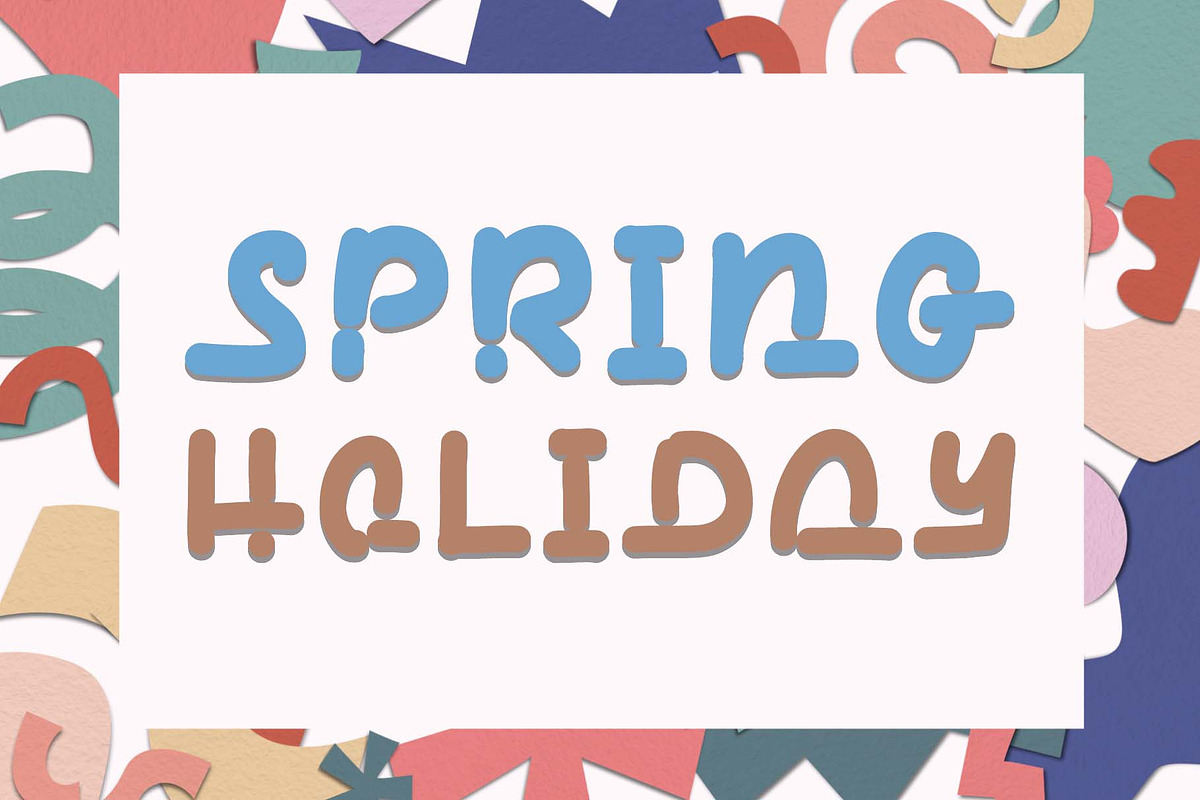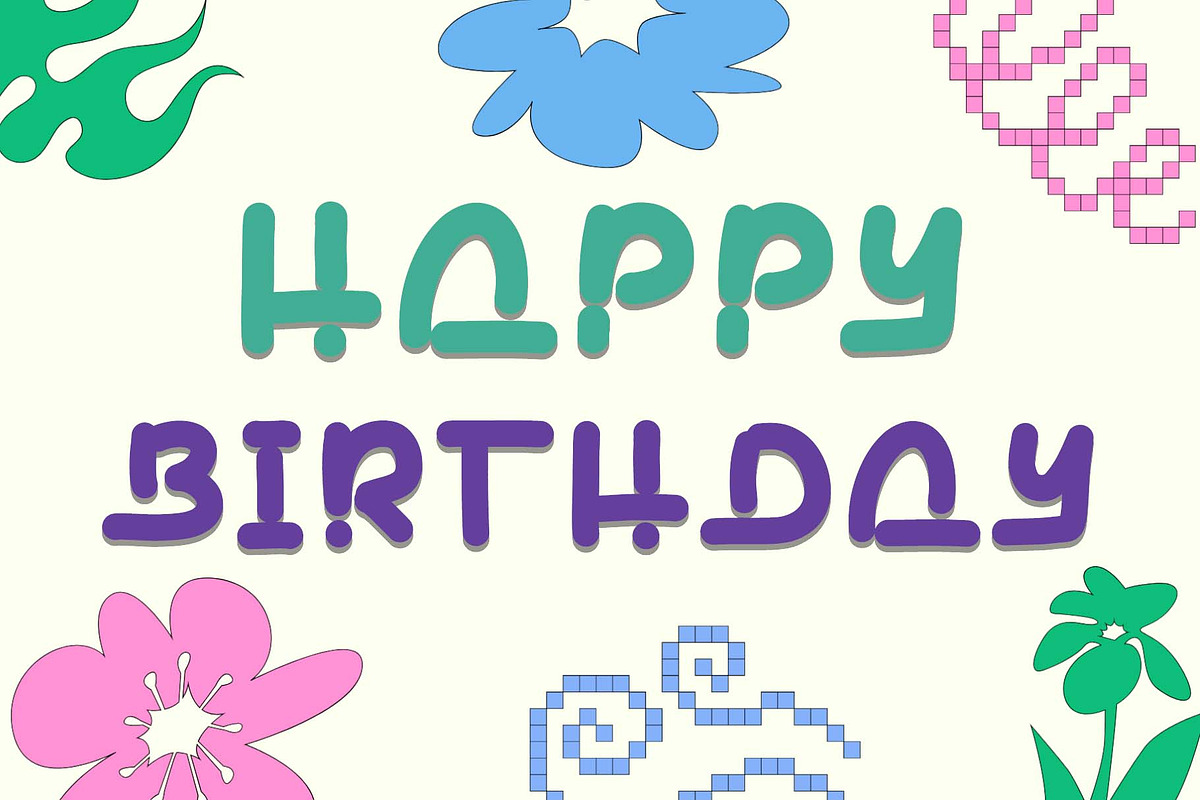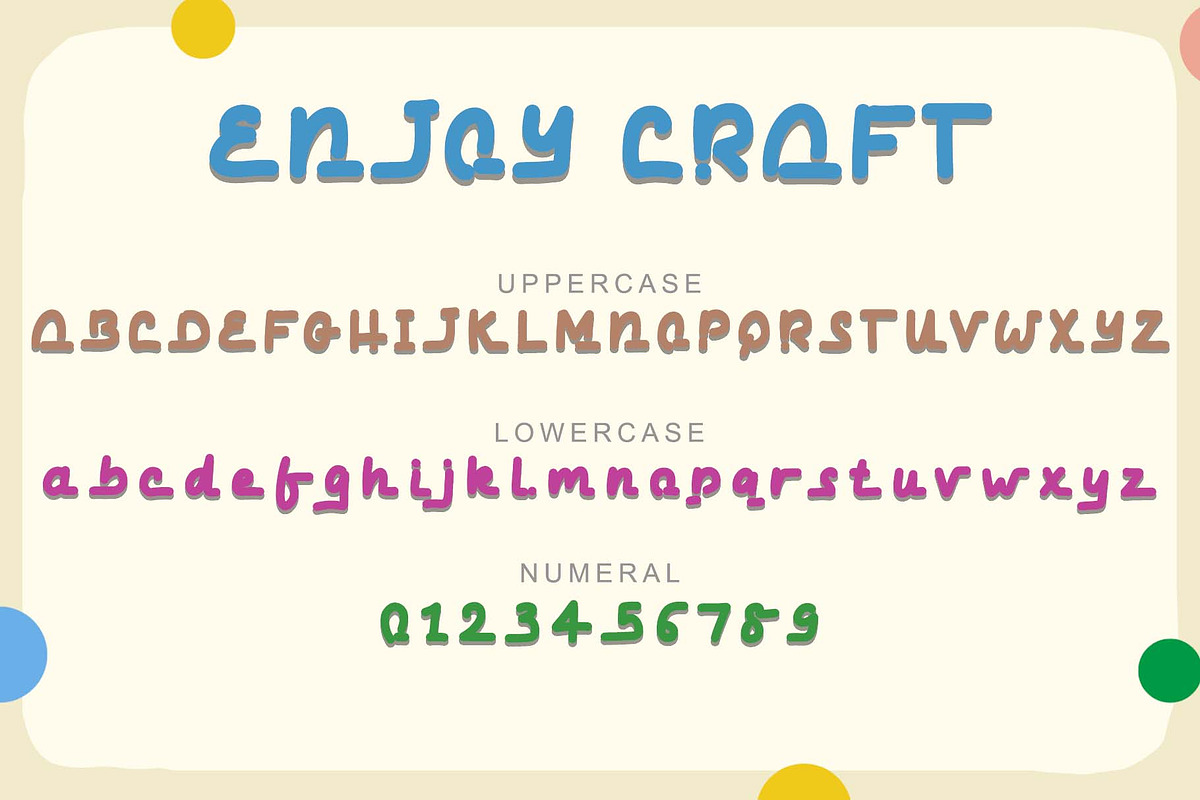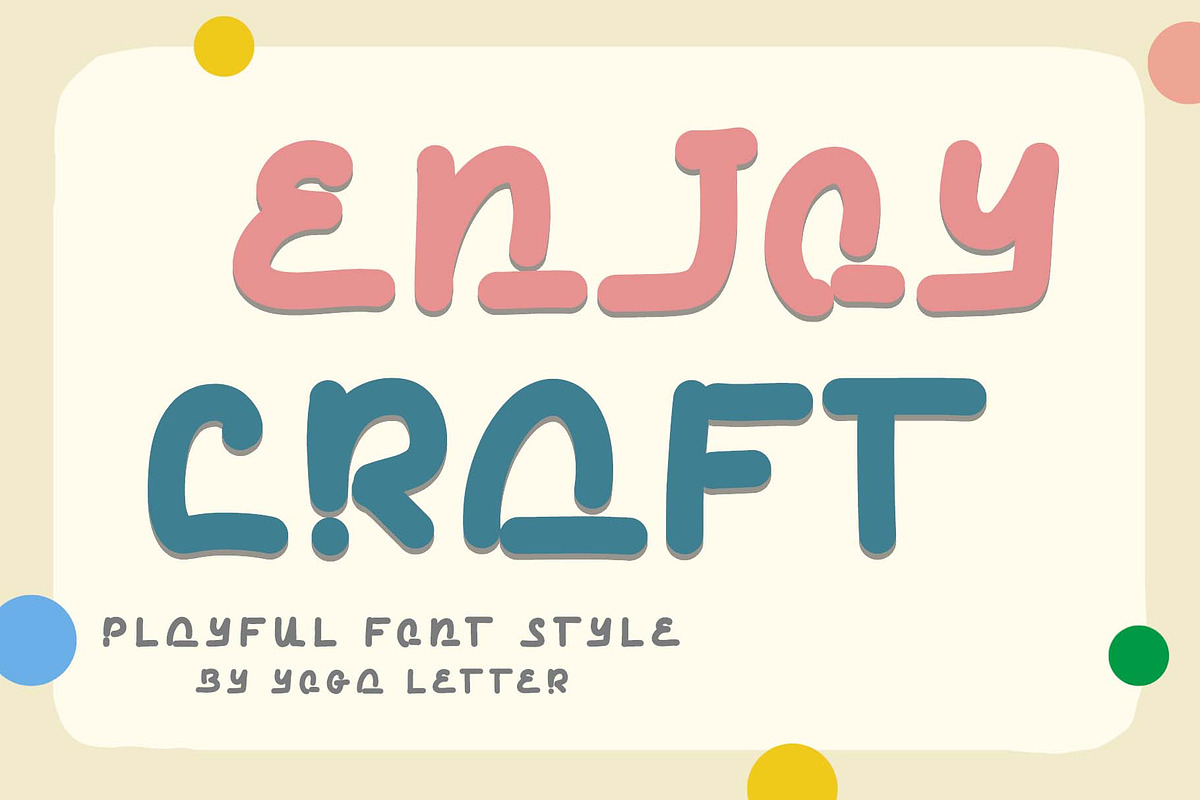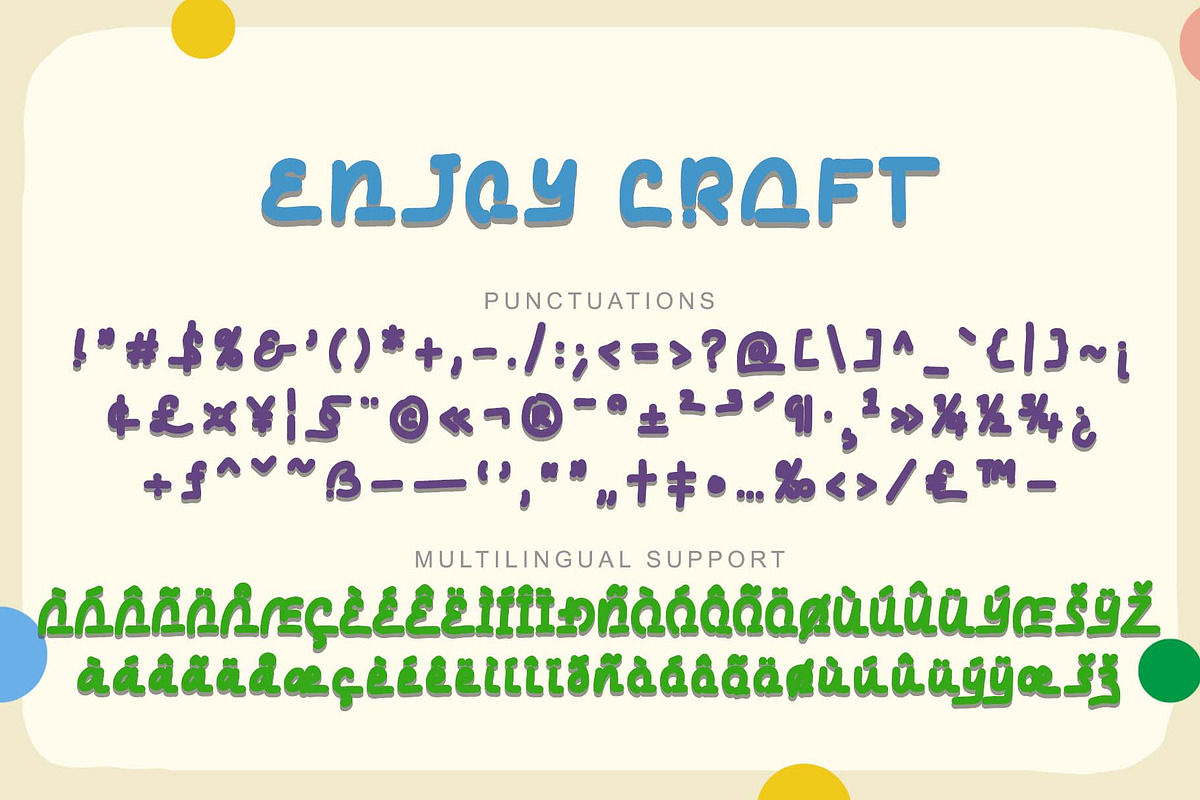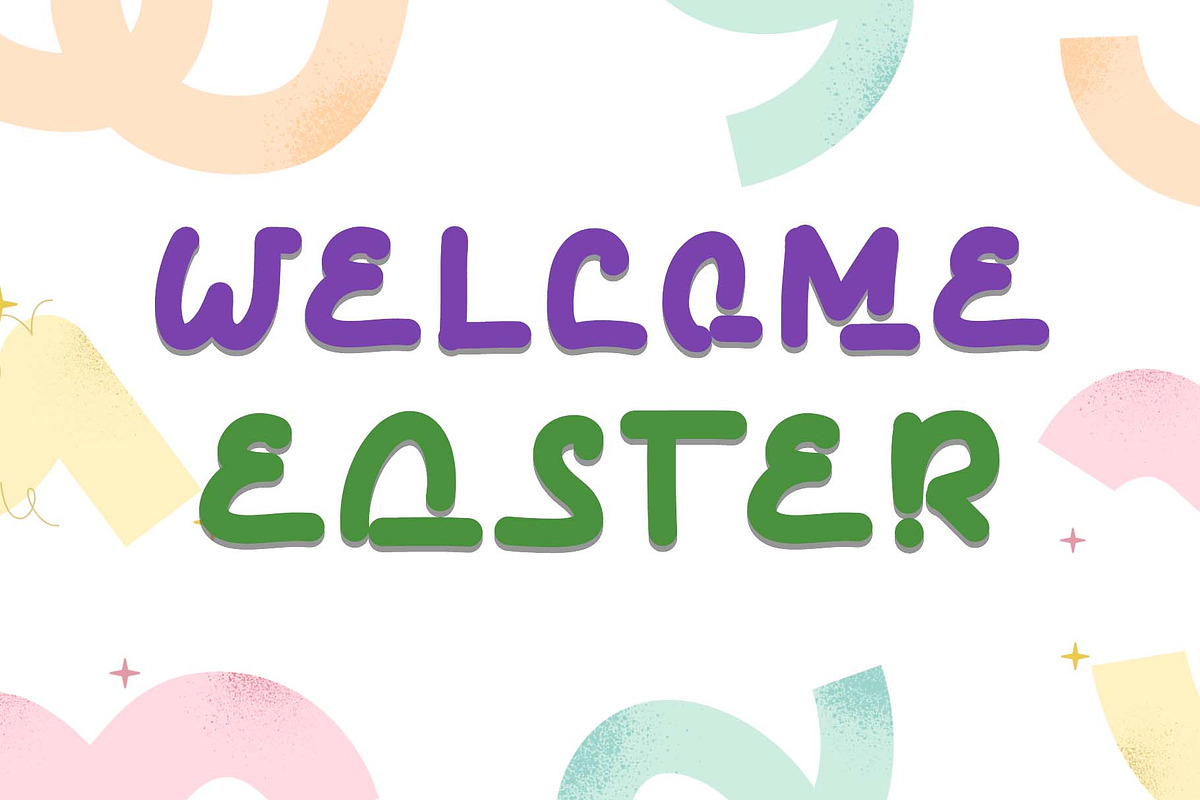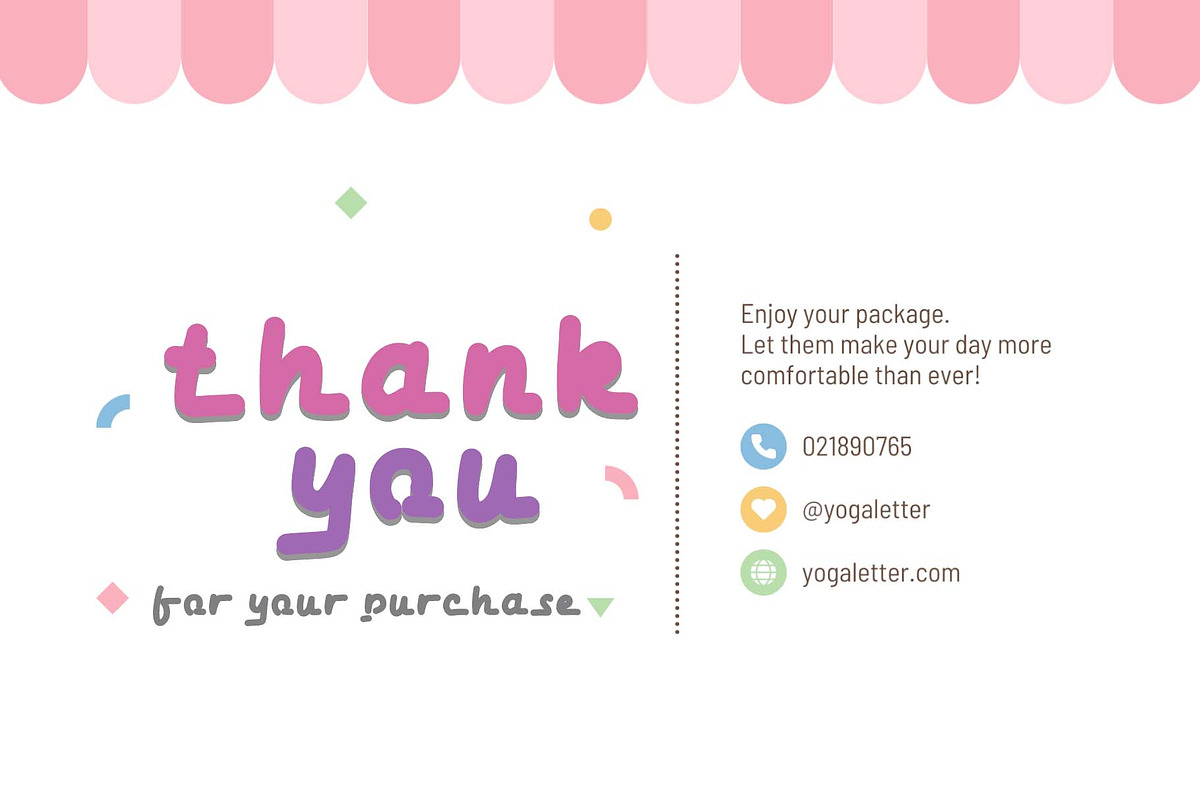
Enjoy Craft
"Enjoy Craft" is a unique and cute display font. This font is equipped with uppercase, lowercase, numerals, punctuations and multilingual support. It is very suitable for use in spring, summer, easter, birthday, comic, coloring book, drawing book, funny movie titles, stickers, posters, prints and others.